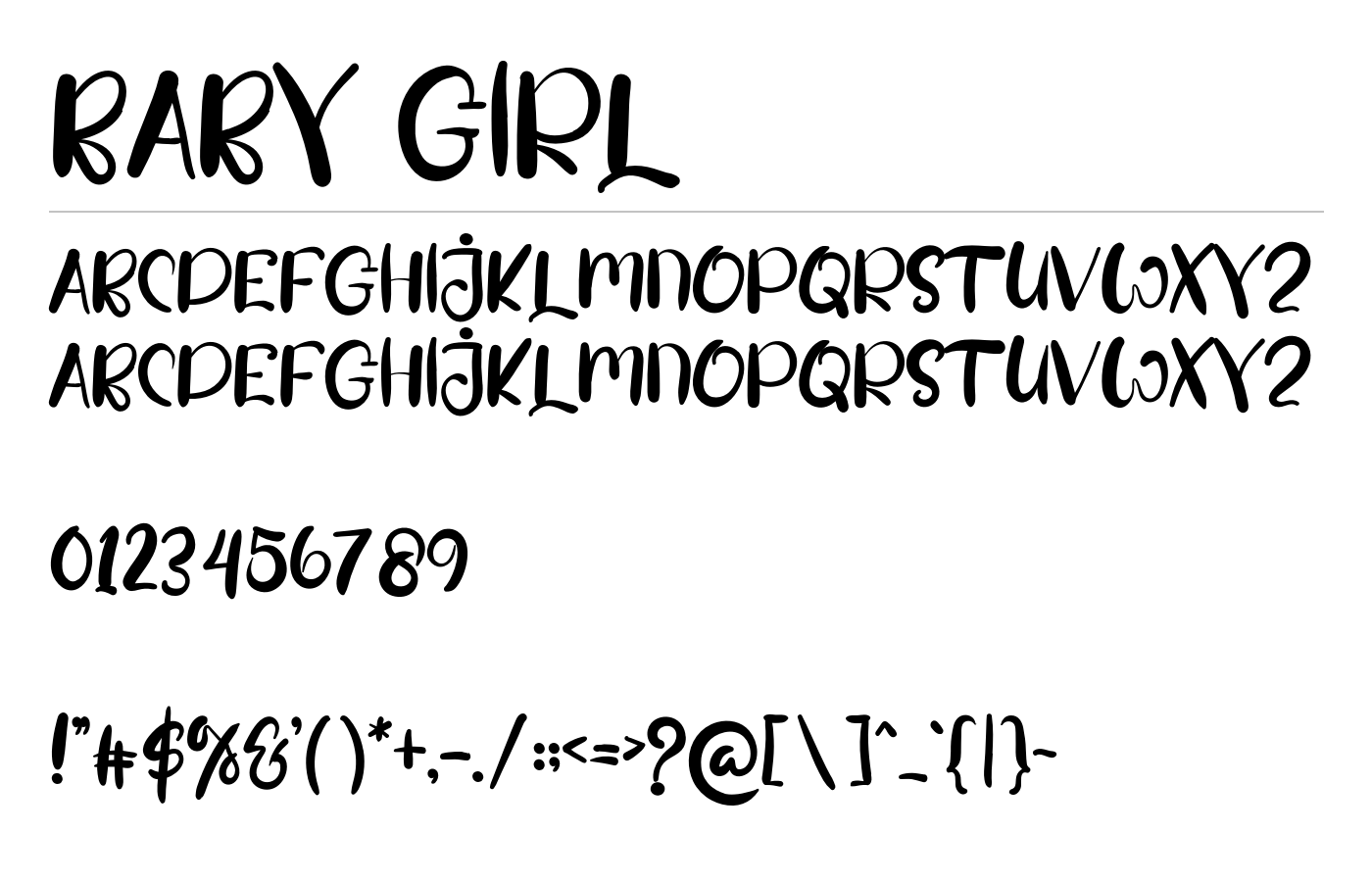
Baby Girl is a playful handwritten sans serif font with a casual, friendly feel. Its lively, rounded letterforms and moderate contrast convey warmth and approachability, making it ideal for branding, invitations, and children's products. This font works best in creative, informal settings where a fun and personal touch is desired.
Baby Girl Font
About Baby Girl Font